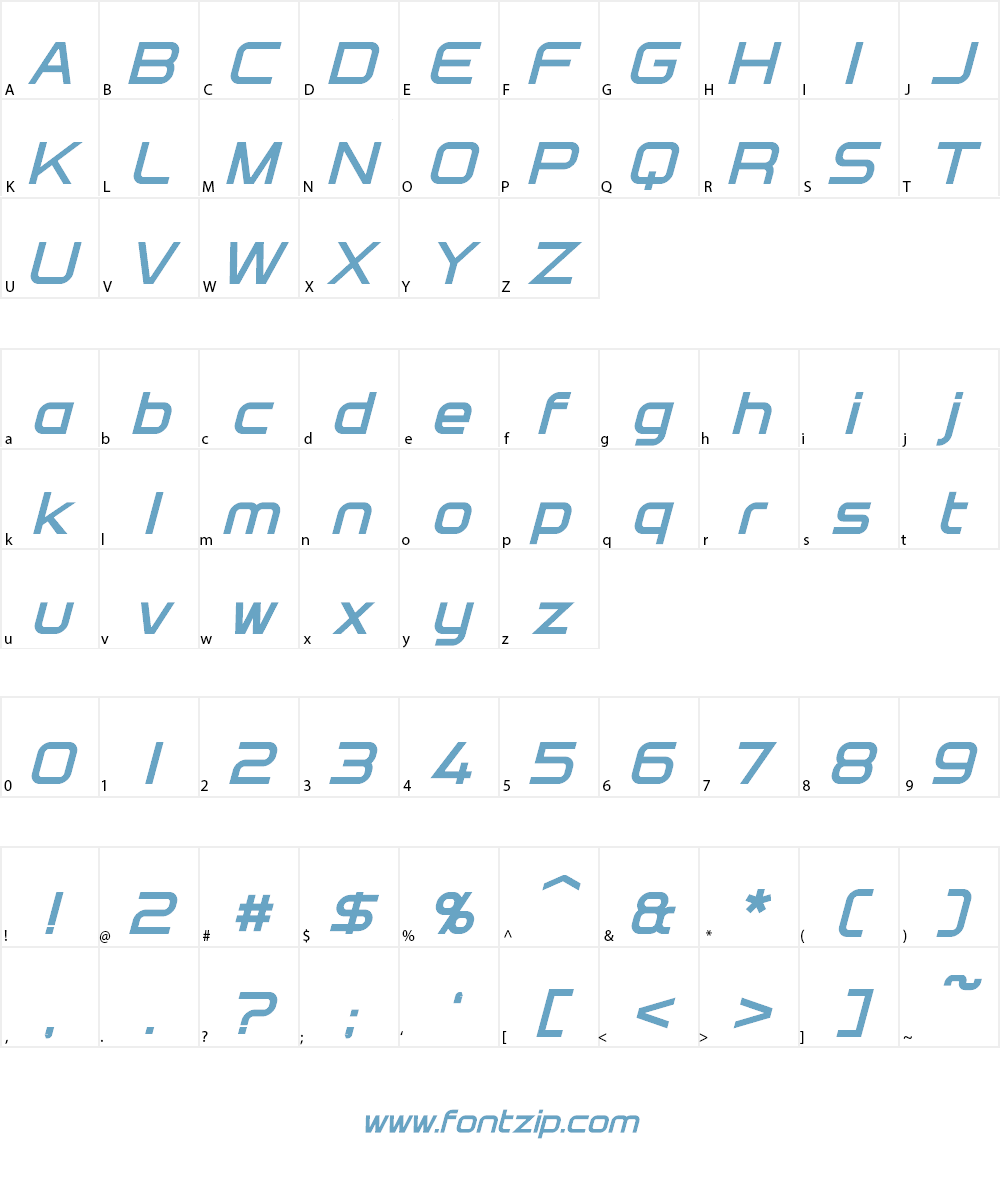
Directive Four is a simple, thin, LCD-based typeface loosely based on the faux computer graphics used in various movies over the years. The face includes the full alphanumerics, extended punctuation, and Euro. Includes bold, italic, and condensed versions.